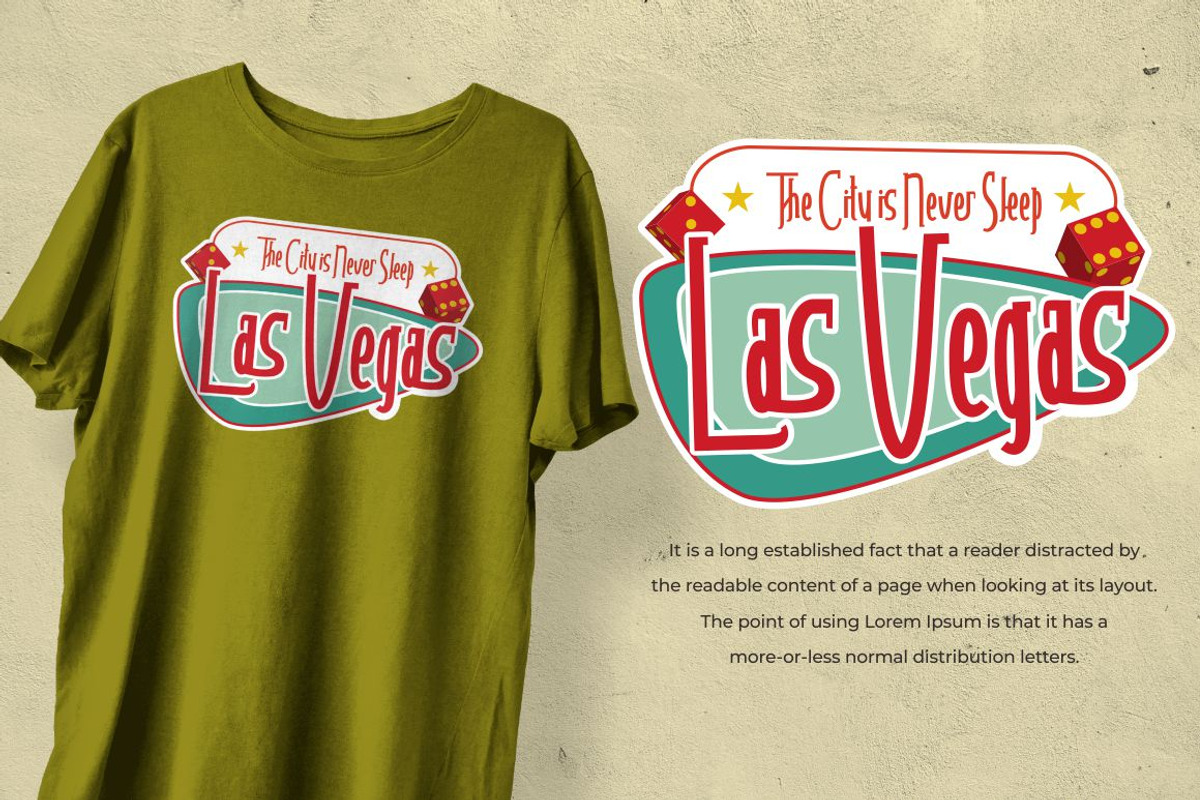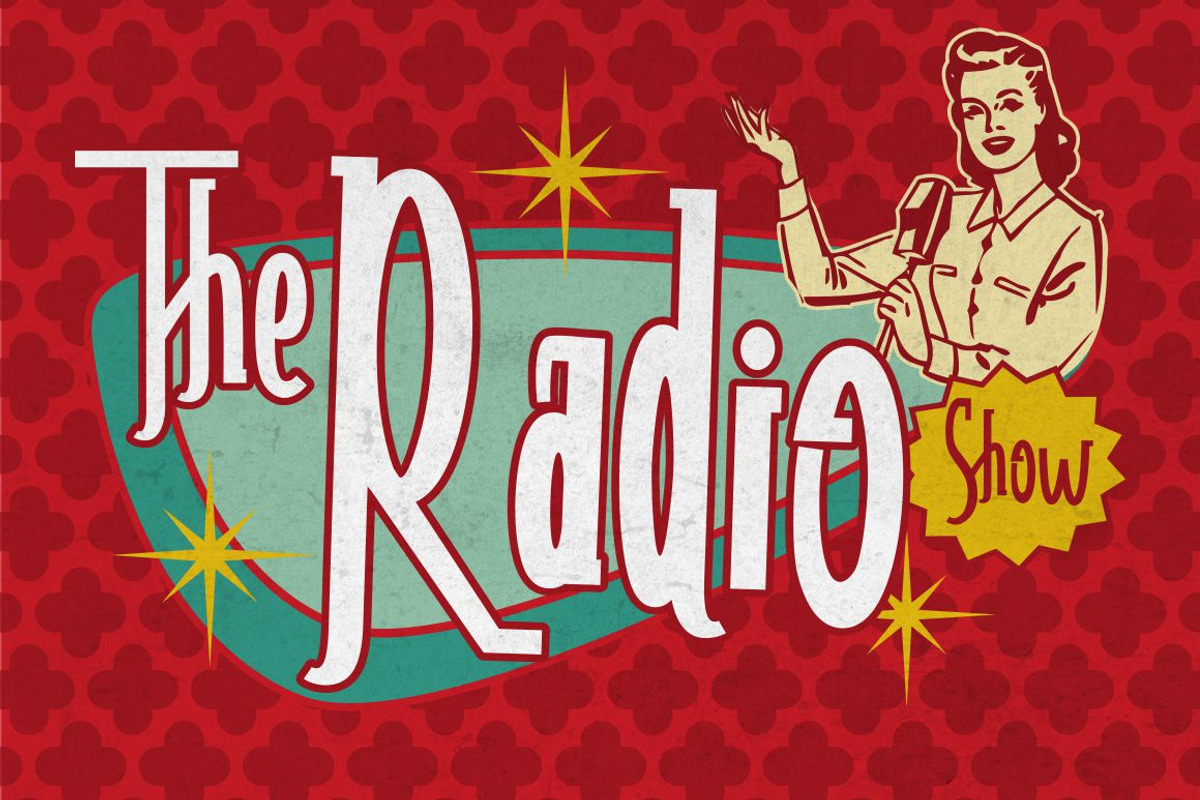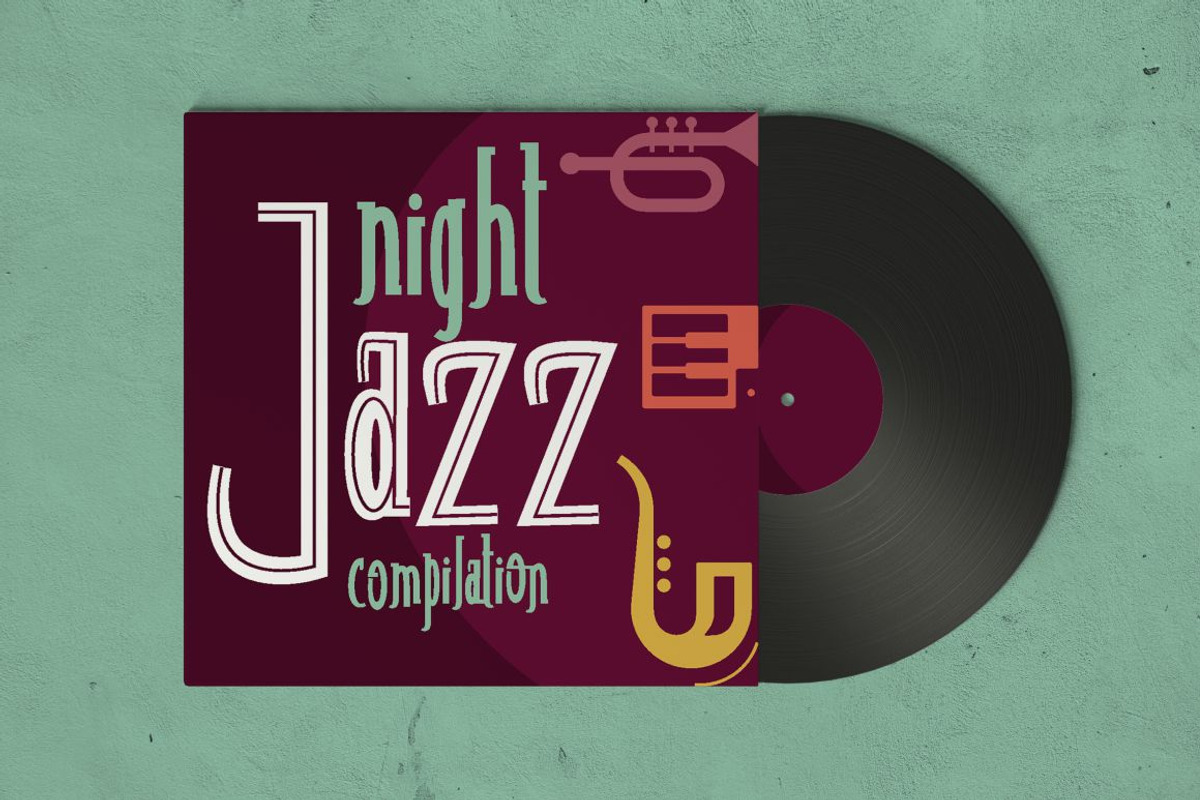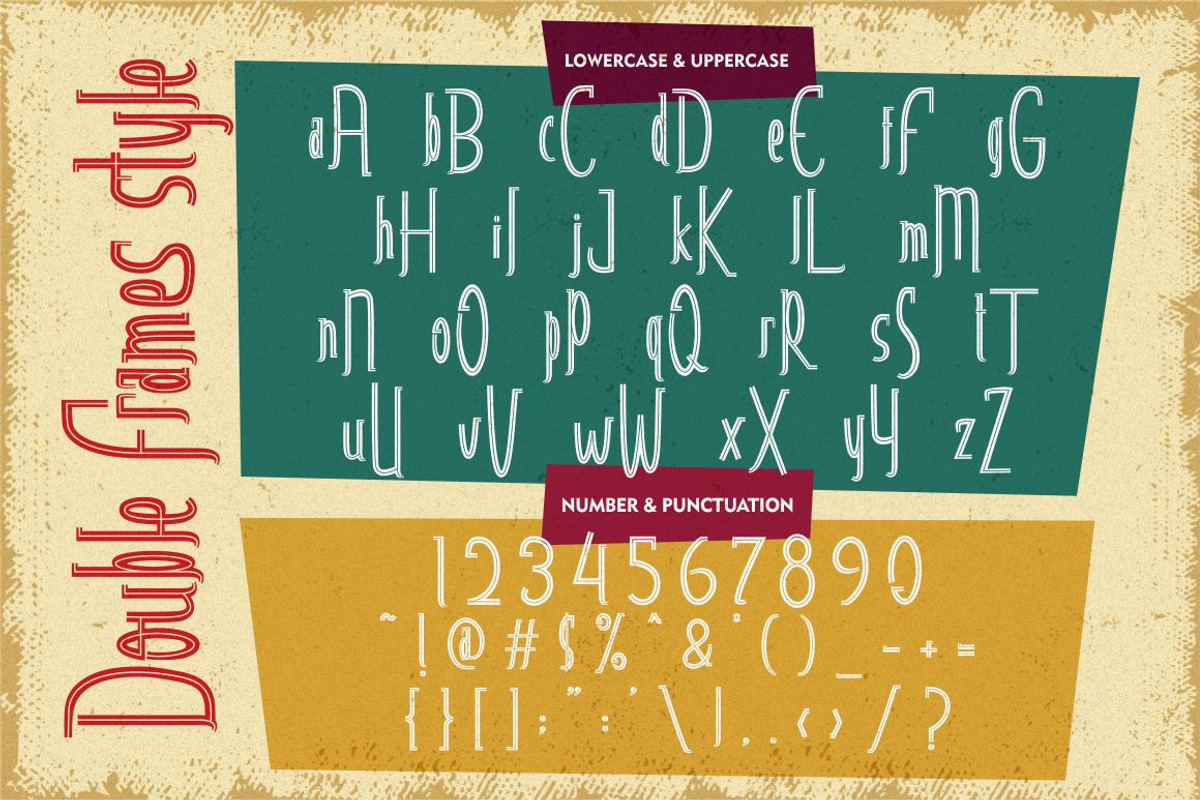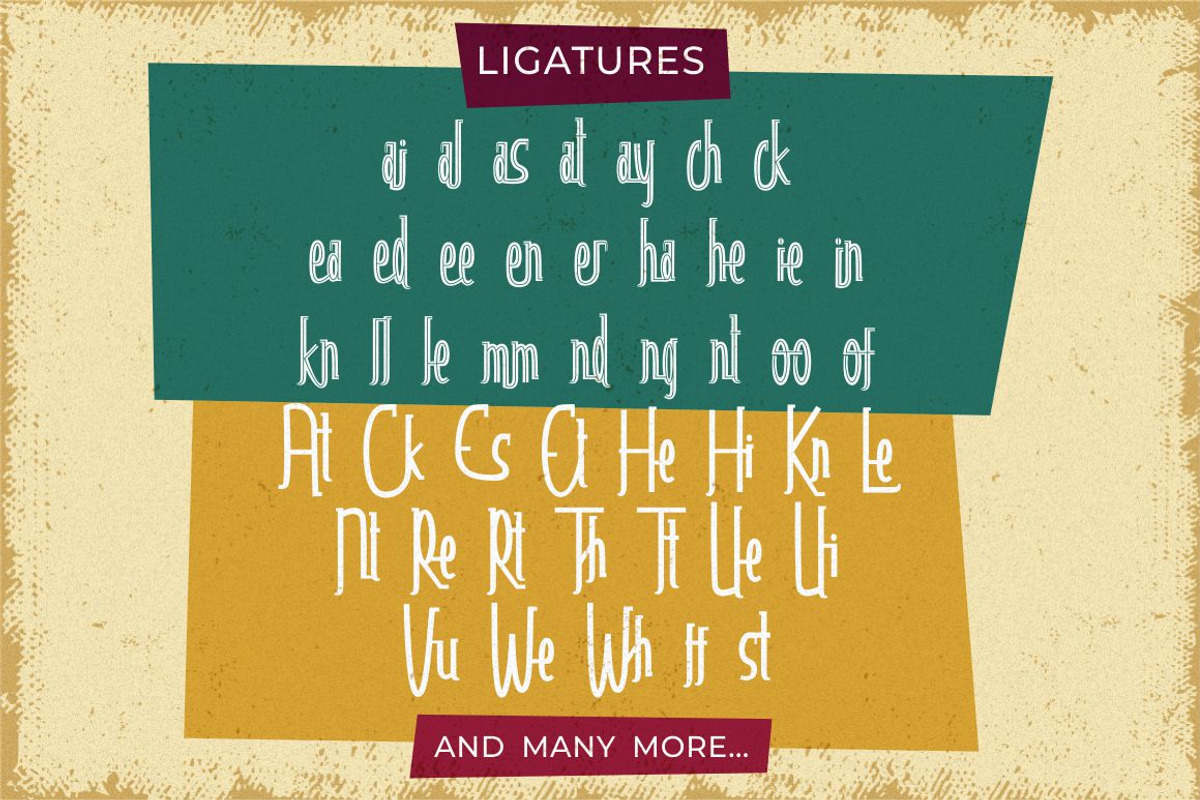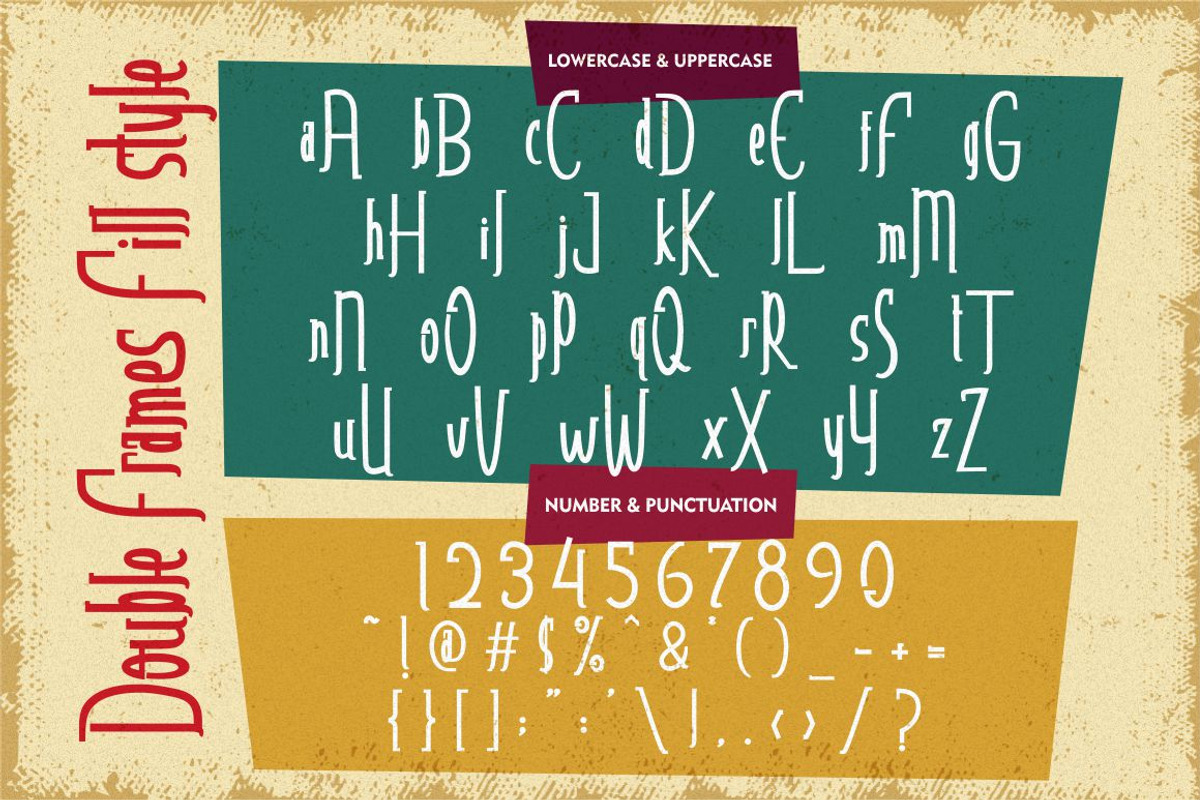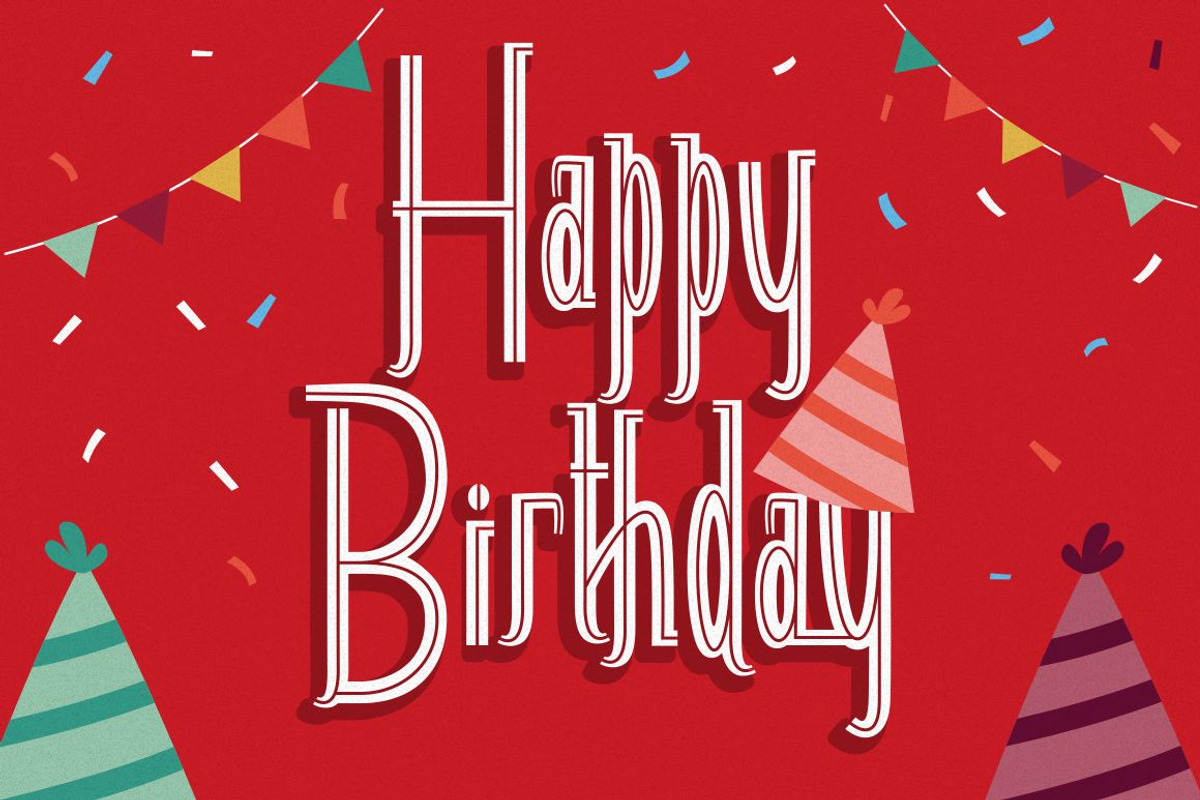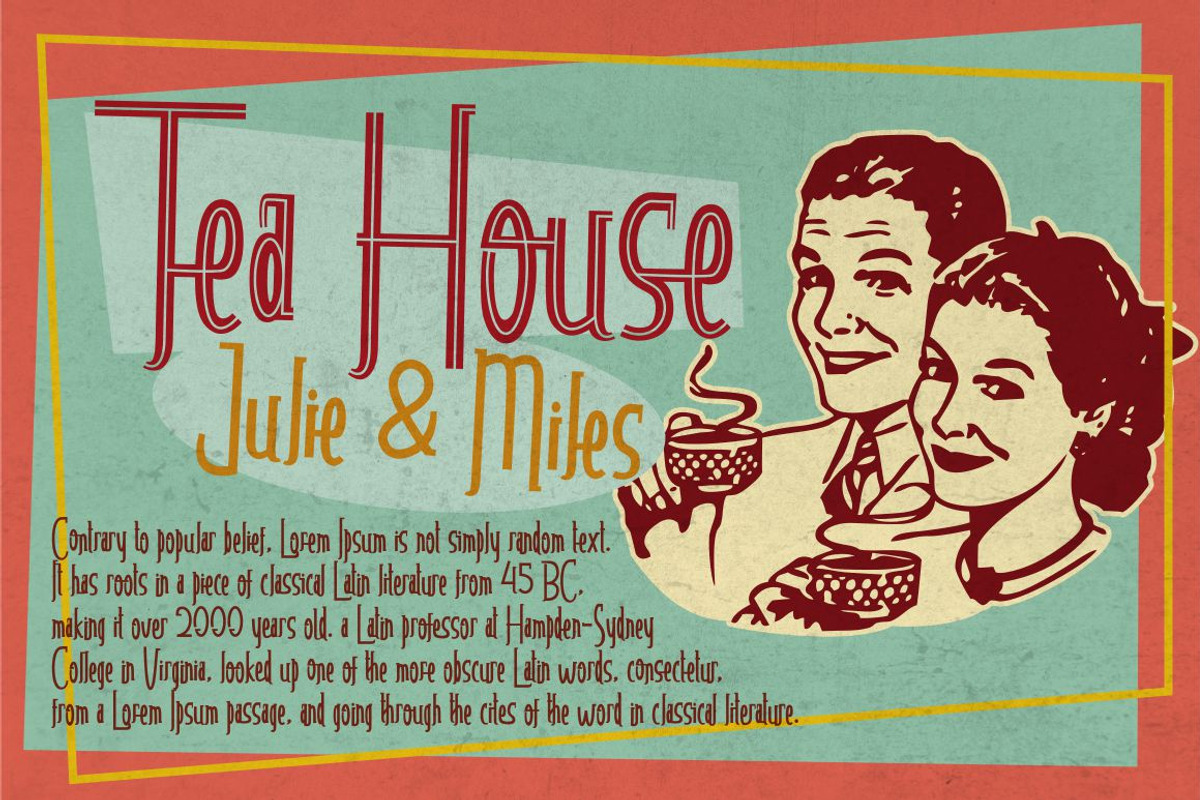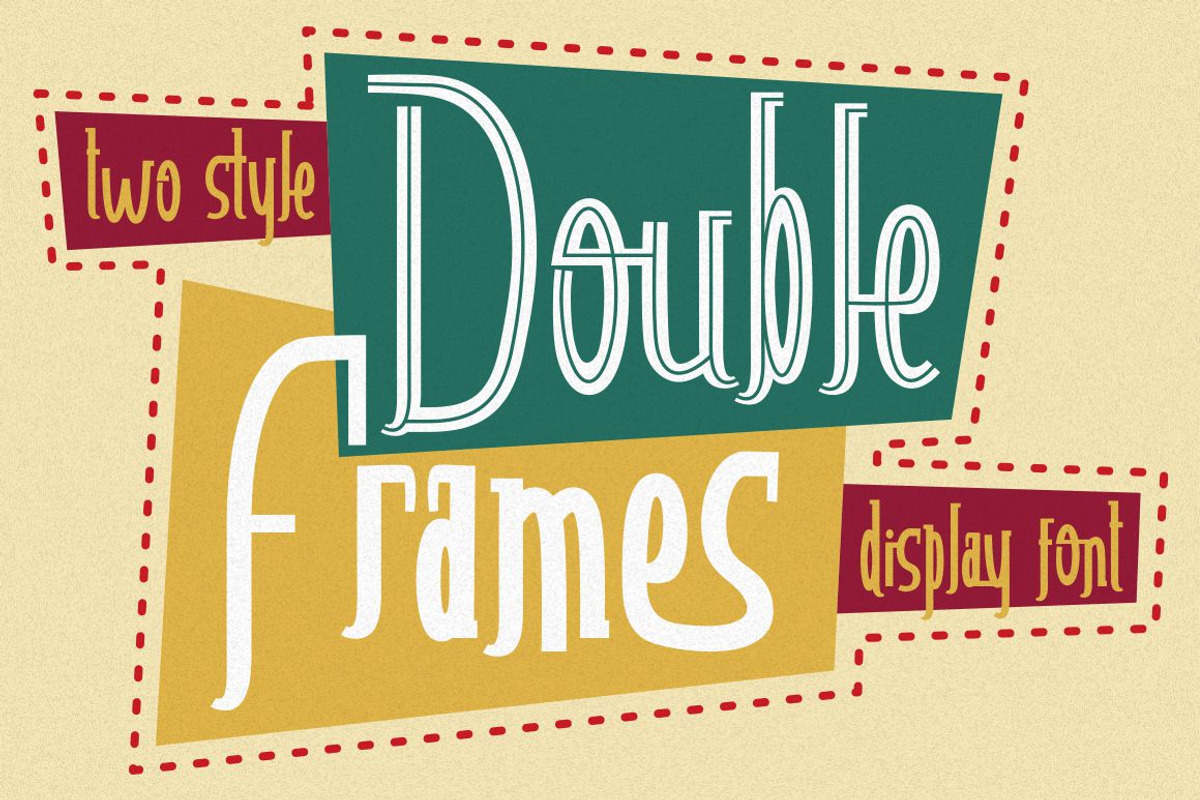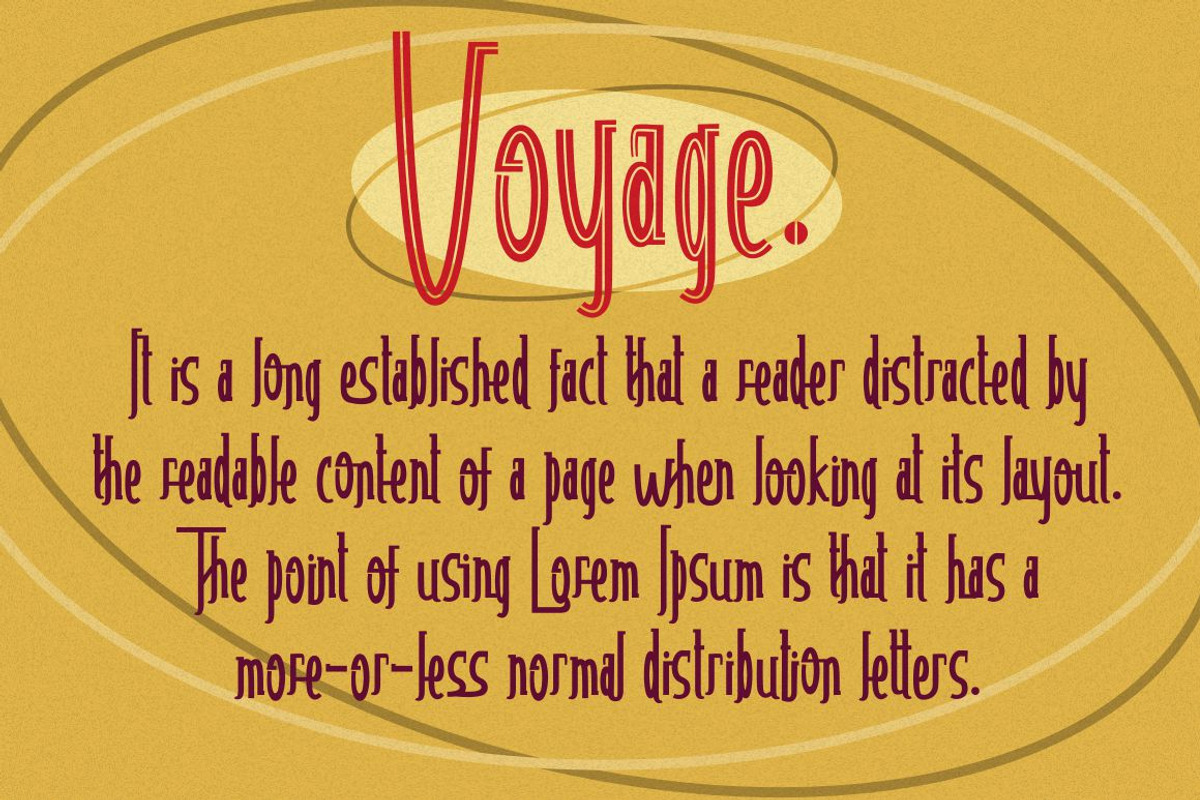
Double Frames - Display Font
Introducing Double Frames - Display Font, a font with unique shape. there are two styles – standard and decorative. The modern and powerful display font you've been looking for. Each character is carefully crafted until the result is perfect. A lot of detail is preserved when characters are digitized, so uppercase looks fantastic up close
Come with open type feature with a lot of alternates, its help you to make great lettering.
best uses for wedding invitation, invitations, signature, typography lettering, branding, label, poster, logos, quotes, product packaging, header, merchandise, social media & greeting cards and many more.
Double FramesThis font is also support multi language.
Comes with feature :
- Opentype (Alternates And Ligatures)
- Number, Punctuation And Symbols
- Multilanguage Support.